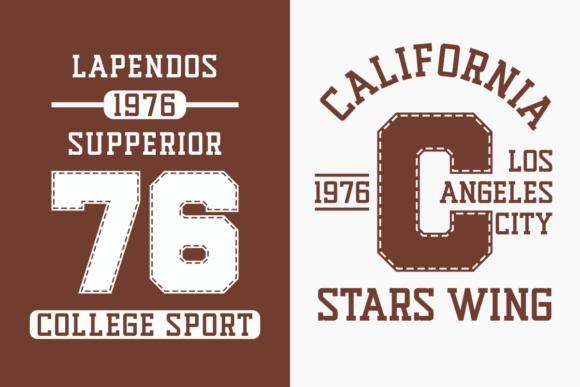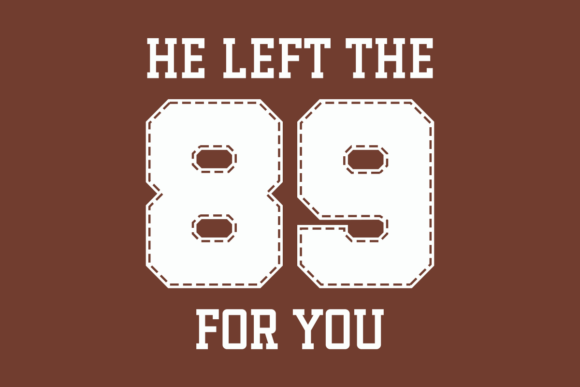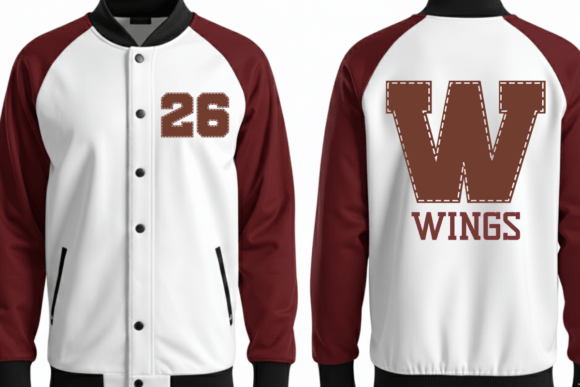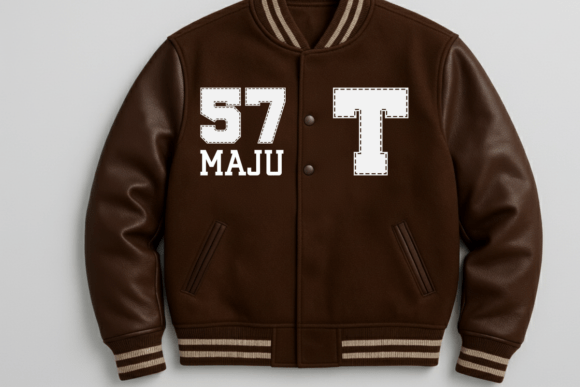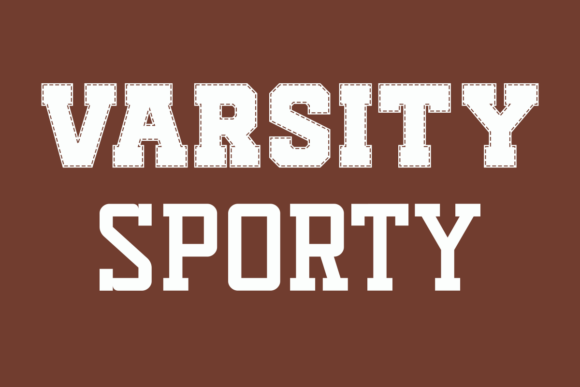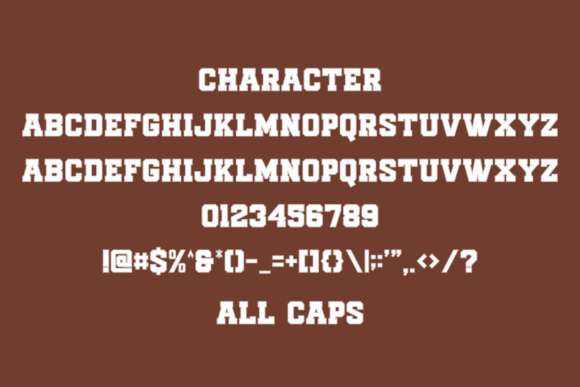
GAP Sporty Font: Elevate Your Designs with a Classic Athletic Vibe
Are you a designer or crafter looking for a font that embodies the spirit of athleticism and classic style? Look no further than GAP Sporty Font. This versatile font pack brings two bold styles in one, perfect for a wide range of projects that require a strong and classic athletic vibe.
What is GAP Sporty Font?
GAP Sporty Font is a carefully crafted font designed to capture the essence of athletic typography. It comes in two distinct styles: a clean varsity look and a stitched version with detailed thread texture. This dual-style approach allows designers and crafters to choose the perfect look for their project, whether it’s a sports poster, jersey, label, or craft project.
Key Features of GAP Sporty Font
- Dual-Style Font Pack: GAP Sporty Font offers two bold styles in one pack, giving you the flexibility to choose the perfect look for your project.
- Clean Varsity Look: The first style features a clean and crisp varsity-inspired design, perfect for projects that require a classic athletic look.
- Stitched Version with Thread Texture: The second style boasts a stitched design with intricate thread texture, adding a tactile and realistic feel to your projects.
- Perfect for Athletic Projects: GAP Sporty Font is ideal for jerseys, sports posters, labels, and craft projects that require a strong and classic athletic vibe.
Use Cases for GAP Sporty Font
GAP Sporty Font is an incredibly versatile font that can be used in a wide range of projects. Here are some use cases to get you started:
- Jerseys: Create custom jerseys for sports teams, clubs, or events with a professional and athletic look.
- Sports Posters: Design eye-catching posters for sports events, tournaments, or promotions with a bold and classic style.
- Labels: Add a touch of athletic flair to your product labels, packaging, or branding materials.
- Craft Projects: Use GAP Sporty Font to add a personal touch to your craft projects, such as scrapbooking, card making, or DIY signs.
Benefits of Using GAP Sporty Font
By incorporating GAP Sporty Font into your designs, you’ll enjoy several benefits:
- Professional Look: GAP Sporty Font gives your projects a professional and polished look that’s sure to impress.
- Flexibility: With two styles to choose from, you can experiment with different looks to find the perfect fit for your project.
- Time-Saving: With a font that’s specifically designed for athletic projects, you’ll save time and effort in finding the perfect typography for your designs.
Tips for Using GAP Sporty Font
To get the most out of GAP Sporty Font, here are some tips to keep in mind:
- Experiment with Colors: Try pairing GAP Sporty Font with bold colors to create a vibrant and eye-catching design.
- Mix and Match: Combine the clean varsity look with the stitched version to create a unique and interesting design.
- Pay Attention to Typography: Use GAP Sporty Font to create visual hierarchy and emphasize key information in your design.
GAP Sporty Font is an exceptional font pack that offers two bold styles in one, perfect for designers and crafters looking to add a classic athletic vibe to their projects. With its versatility, ease of use, and professional look, GAP Sporty Font is an excellent addition to any design toolkit. Whether you’re creating jerseys, sports posters, labels, or craft projects, GAP Sporty Font is sure to elevate your designs and help you achieve your creative goals.